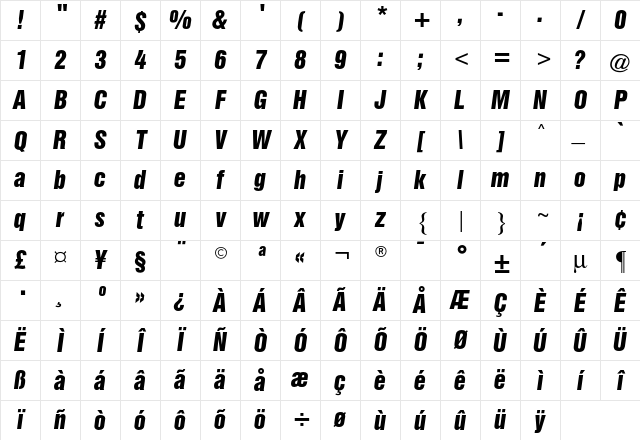
Triumvirate CG Inserat Italic
Foundry: Miles Inc
Design Context for Triumvirate CG Inserat
Triumvirate CG Inserat is a composed and adaptable typeface that performs quietly and consistently across a wide range of design contexts. The slanted form adds forward momentum and visual energy.
Who designed the Triumvirate CG Inserat Italic font?